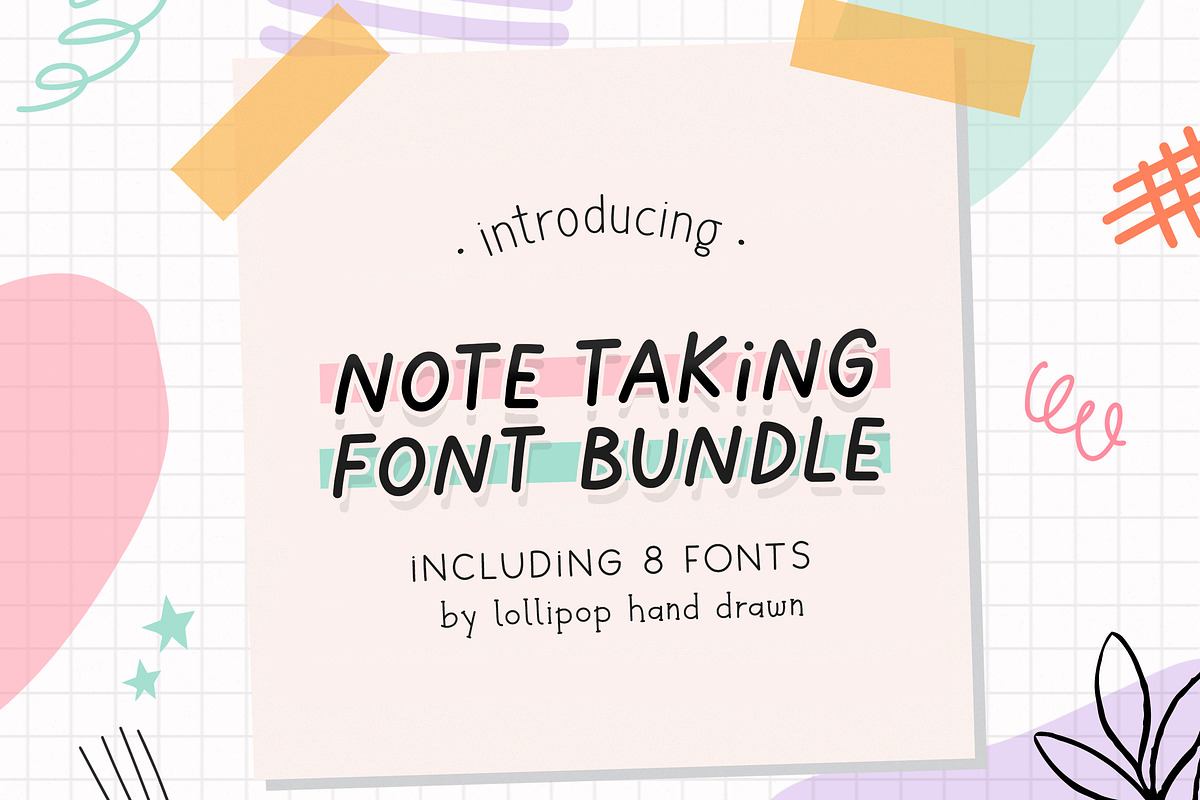
Note Taking Font Bundle (8 Fonts) Free Download
The Note Taking Font Bundle (8 Fonts) Free Download offers a collection of 8 unique handwritten-style fonts, perfect for adding a personal, casual, and artistic touch to your designs. Ideal for creating custom notes, logos, branding materials, social media graphics, and more, this bundle provides versatility for a wide range of creative projects. Please note, for commercial use, a license must be purchased. You can download it for free for testing purposes.
This bundle includes a variety of fonts that range from neat and legible to playful and expressive, making it perfect for projects requiring a friendly, handwritten aesthetic. Whether you're designing for personal use, event invitations, or brand identity, the Note Taking Font Bundle (8 Fonts) Free Download provides a diverse selection to meet your creative needs.